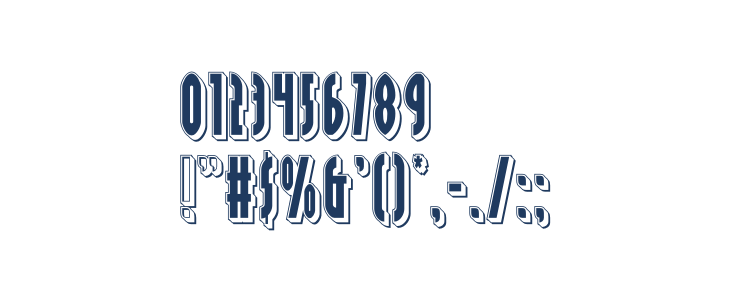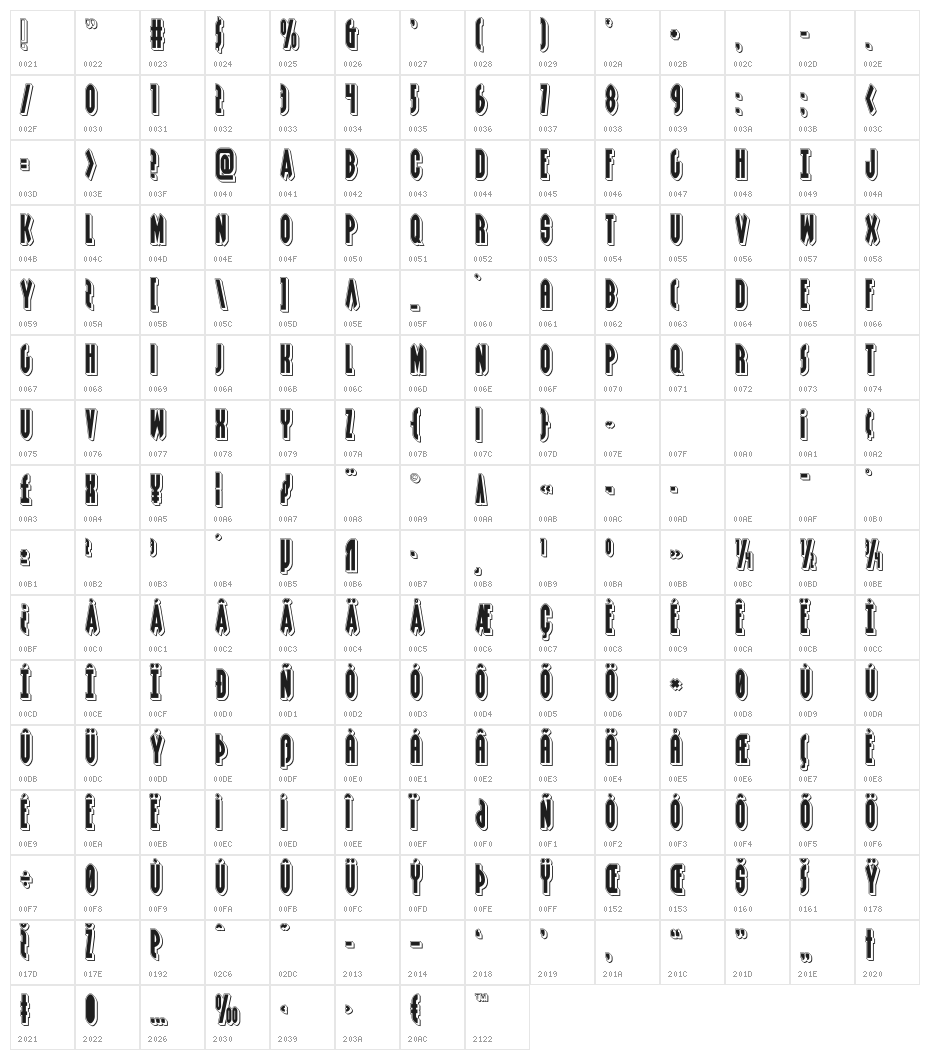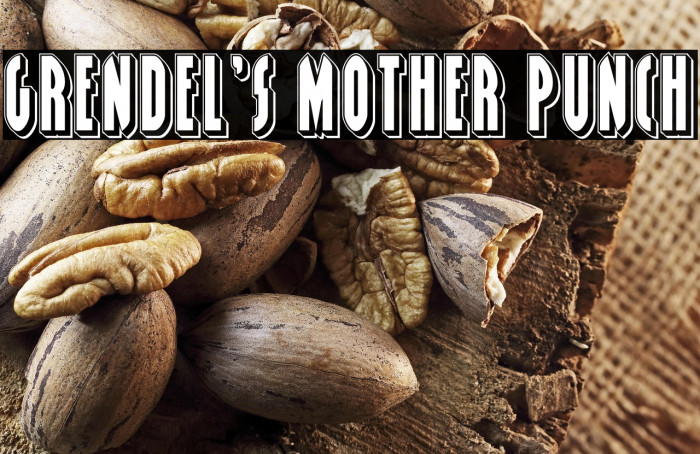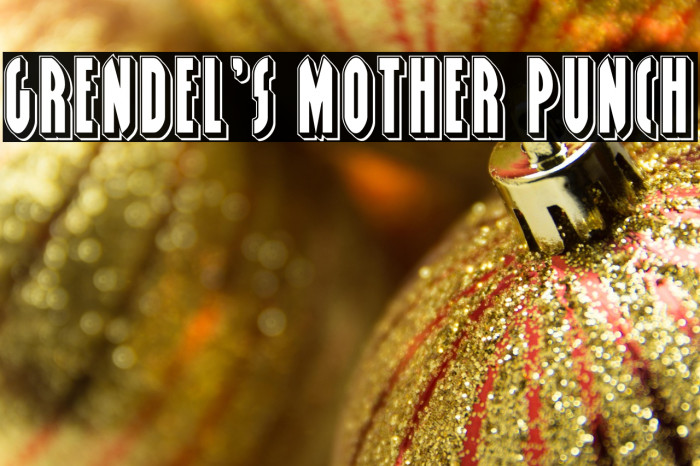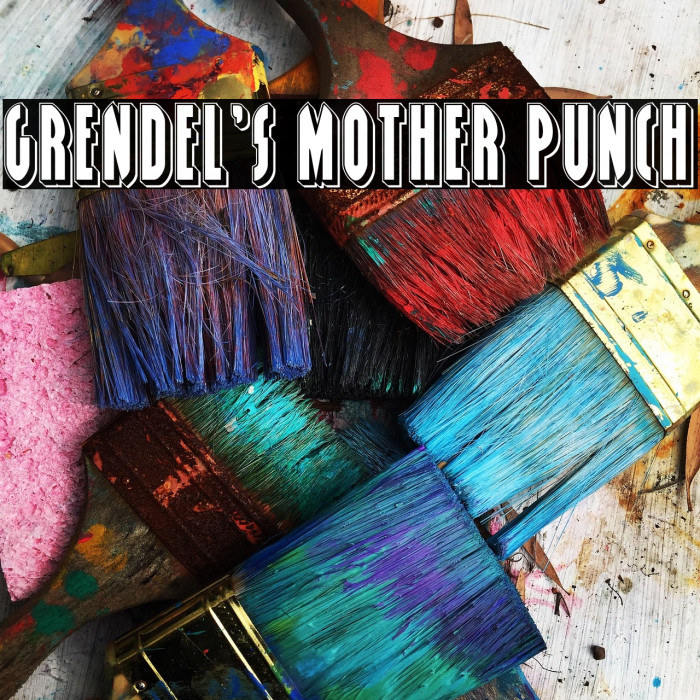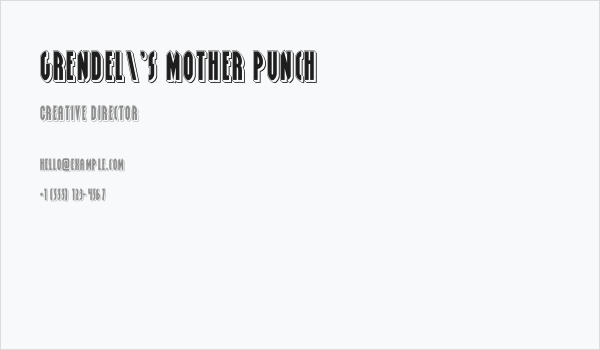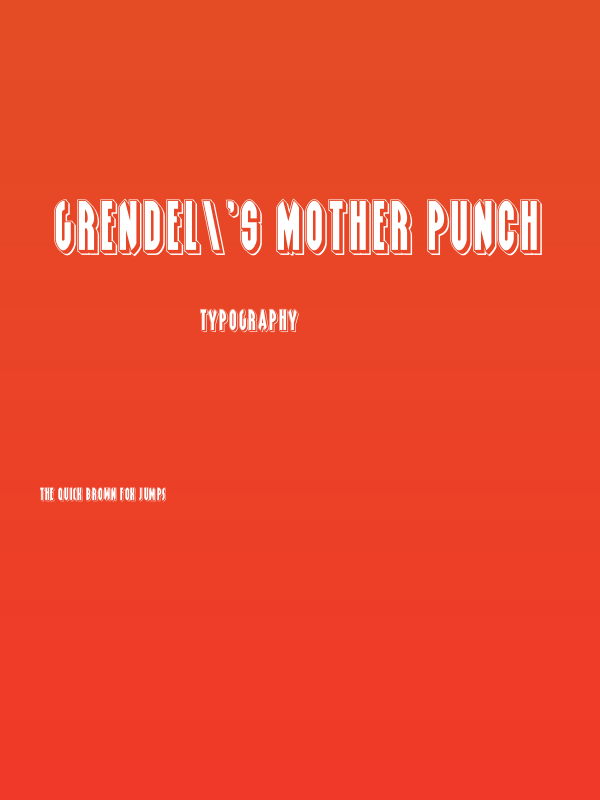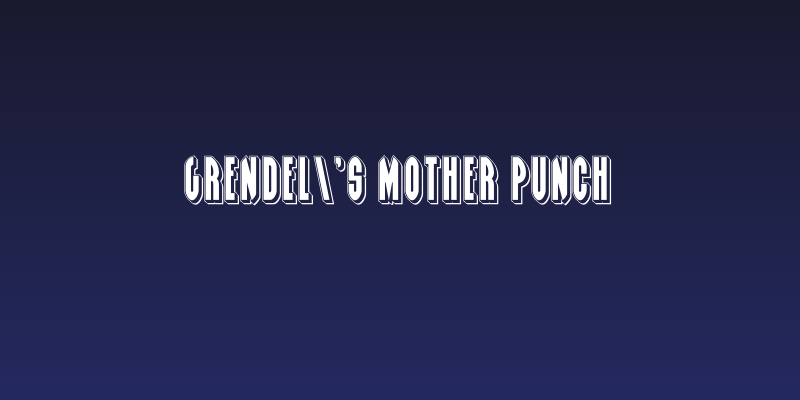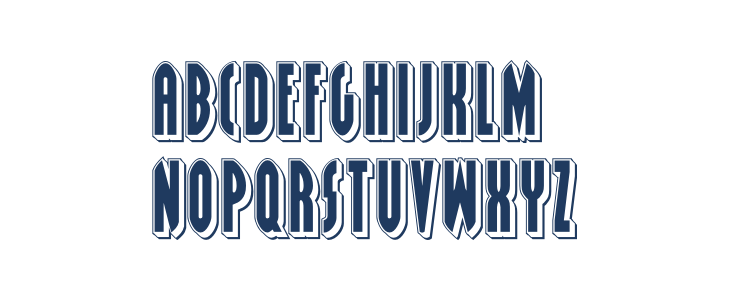
Grendel's Mother Punch Font
Grendel's Mother Punch Description
This font features a bold, impactful design with a strong presence. The characters are outlined with a thick black border, creating a striking contrast against the white interior. Each letter is capitalized, with a blocky, geometric style that emphasizes vertical and horizontal lines. The font's design is reminiscent of vintage poster typography, with a modern twist that makes it suitable for attention-grabbing headlines. The numbers and special characters follow the same bold and structured aesthetic, ensuring consistency across all elements.
| Overall Style | Vintage, Modern |
| Proposed Projects | Ideal for poster designs, event flyers, branding materials, and any project requiring a bold, eye-catching typeface. |